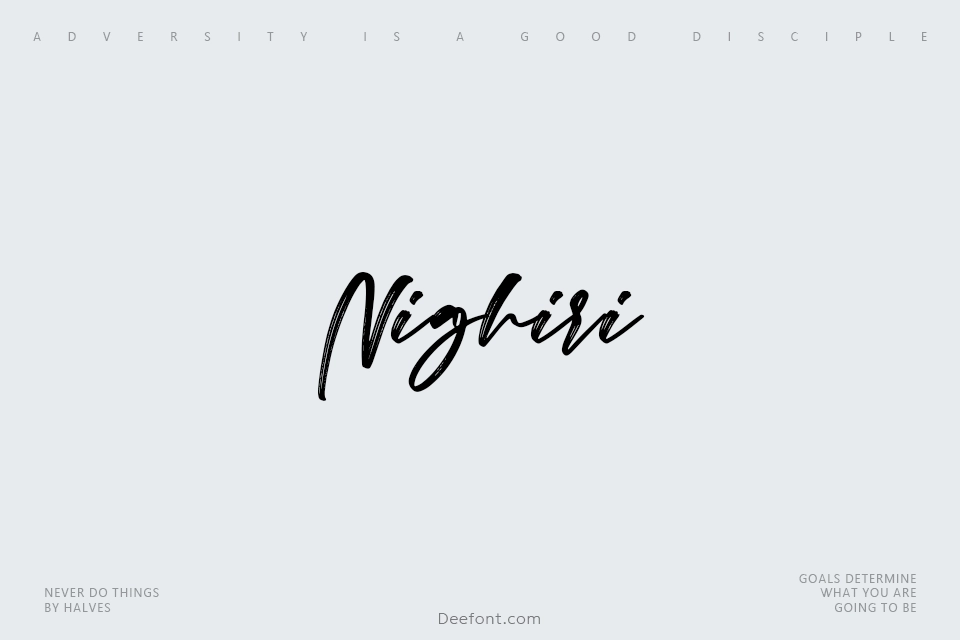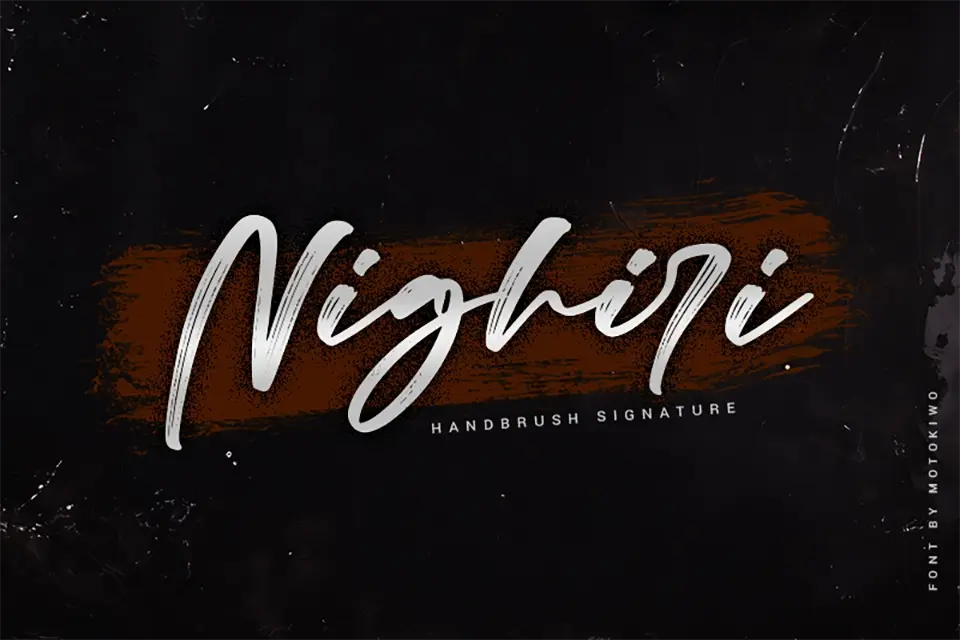
Nighiri Font
Nighiri is an elegant handbrush script font designed for multipurpose creative projects. This stunning brush script typeface features beautiful, flowing characters with natural fast-drying stroke effects, making it perfect for logos, signatures, branding, product packaging, social media graphics, and handwritten quotes. With comprehensive character support including uppercase and lowercase letters, numerals, and punctuation marks across multiple languages, Nighiri delivers sophisticated elegance for display typography and signature-style designs.